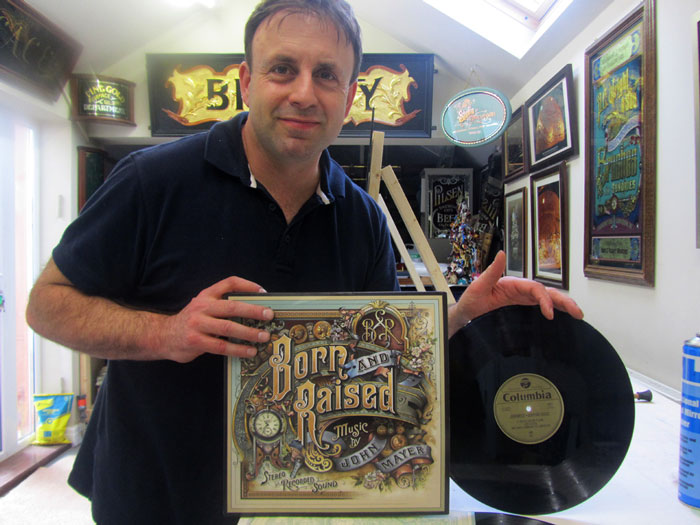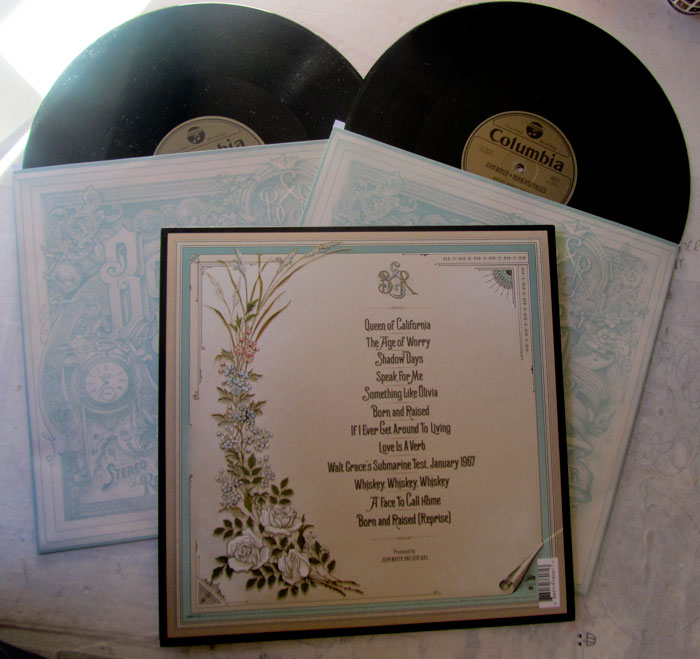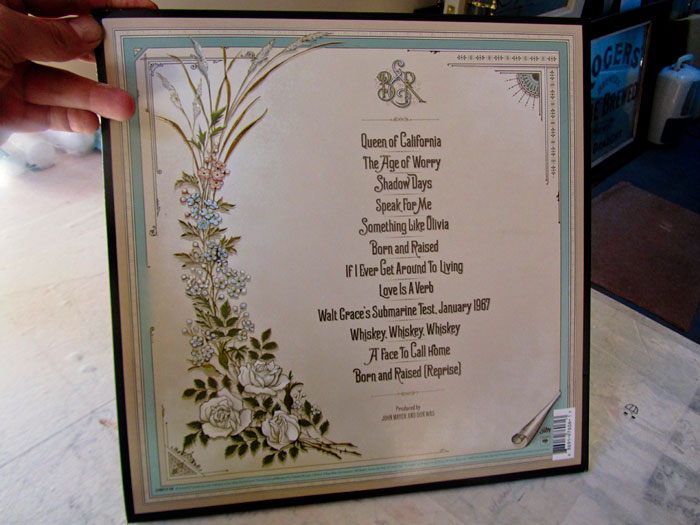
LP's are back ! Born and Raised cover, John Mayer
Sony sent me the completed album cover I made for John Mayer. Something about these old LPs and the quality to them.
so much nicer than a cd case. Was pleased to receive this on Monday and on my Birthday of all day's!
Re: LP's are back ! Born and Raised cover, John Mayer
Looks Great Dave!
I really like the way you worked in that "UPC" Label...it looks so inconspicuous....
Re: LP's are back ! Born and Raised cover, John Mayer
Finished at last!
The back cover is a very nice, understated complement to the front cover - which makes such a bold statement. I like the fact that it doesn't compete with the front (as if you could view front & back simultaneously) but it elegantly frames the song titles. (In the second photograph, are those duotone inside sleeves peeking out underneath the back cover?)
I'd frame that and do some nice gold work on the glass to compliment it.
Re: LP's are back ! Born and Raised cover, John Mayer
Now that's what I'm talking about! That album cover looks even more
vivid than your original art. Vinyl is a happenin' thing again I hear. CD cases are
so whimpy. Very interesting to see this show up in vinyl.
You did real good on this project Dave.
Thanks you guys , yes they are duatones Dan, I played it today and it does sound so much better on the old record players ,very nostalgic sound.
I would like to make it in glass around 4ft square, need to speak with Sony about this, would be nice as a one off panel but lots of work! probably a years work as it would be all done by hand with no screen printing.
Very cool in LP, only problem i noticed with the back they have put one of the shade layers too far in front of the leaves, only designers will spot it.
Out of my control for the part.
Nice Mike!thats great.I received the small litho prints this morning ,these are really nicely made with raised embossed text, JM Management went to the next level on the merchandise quality.